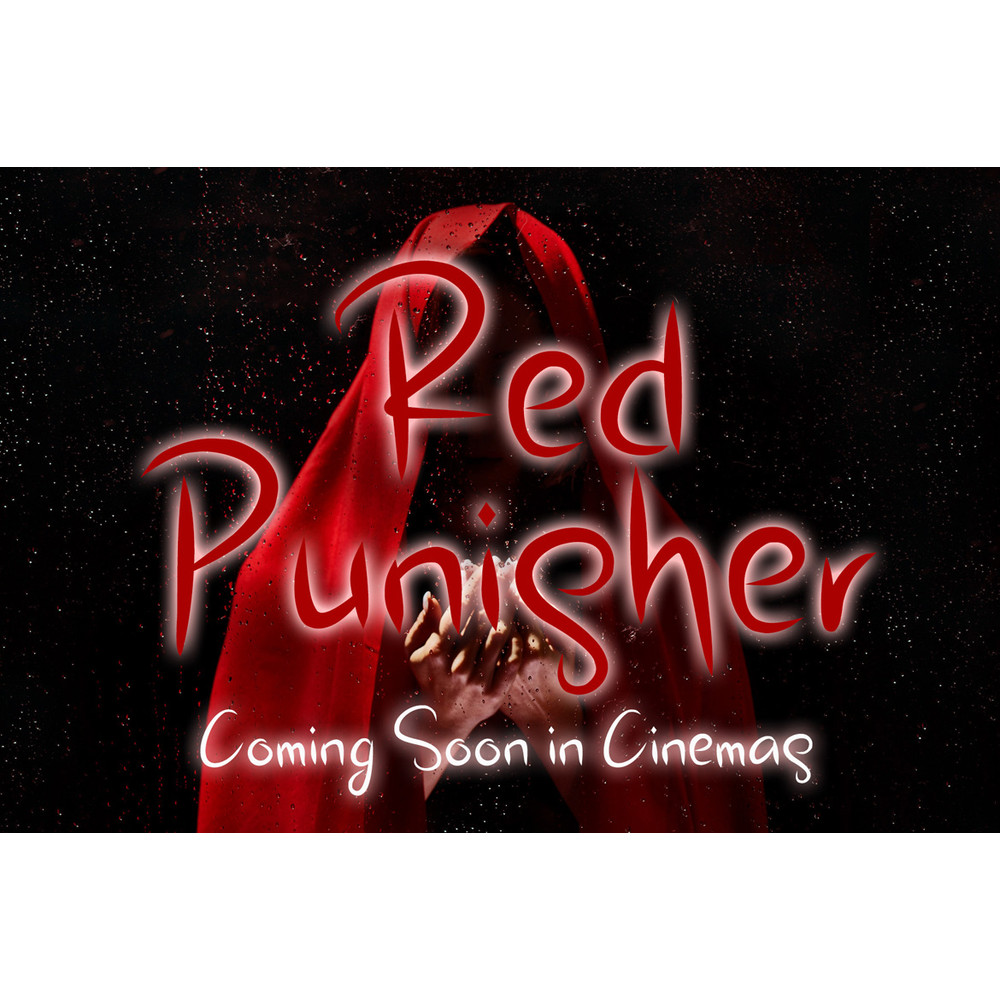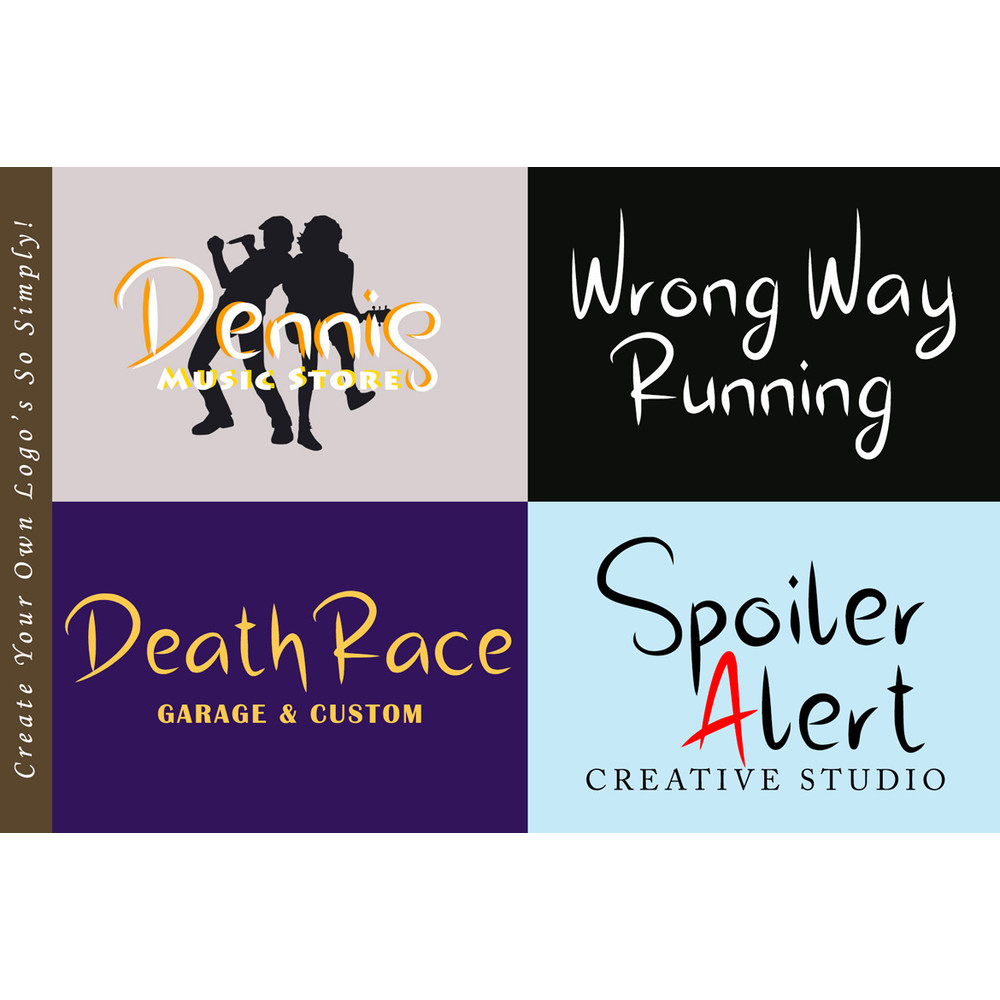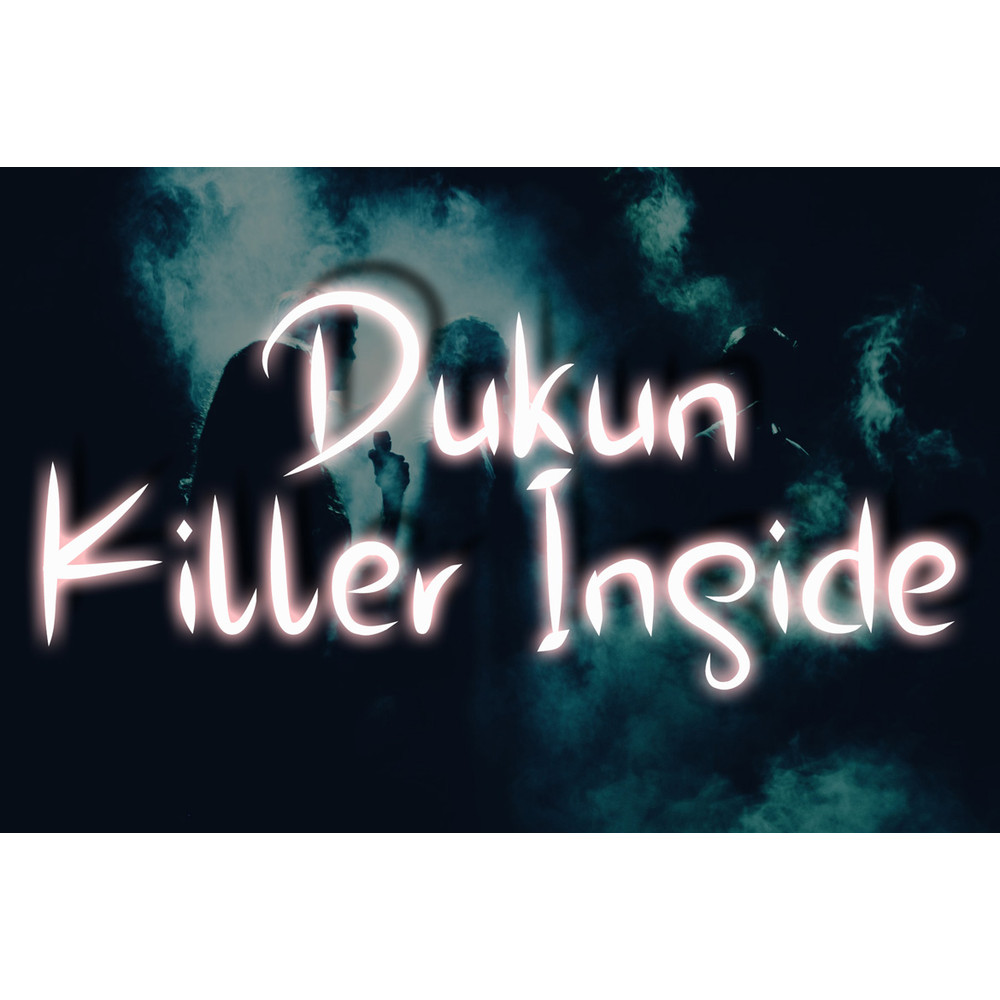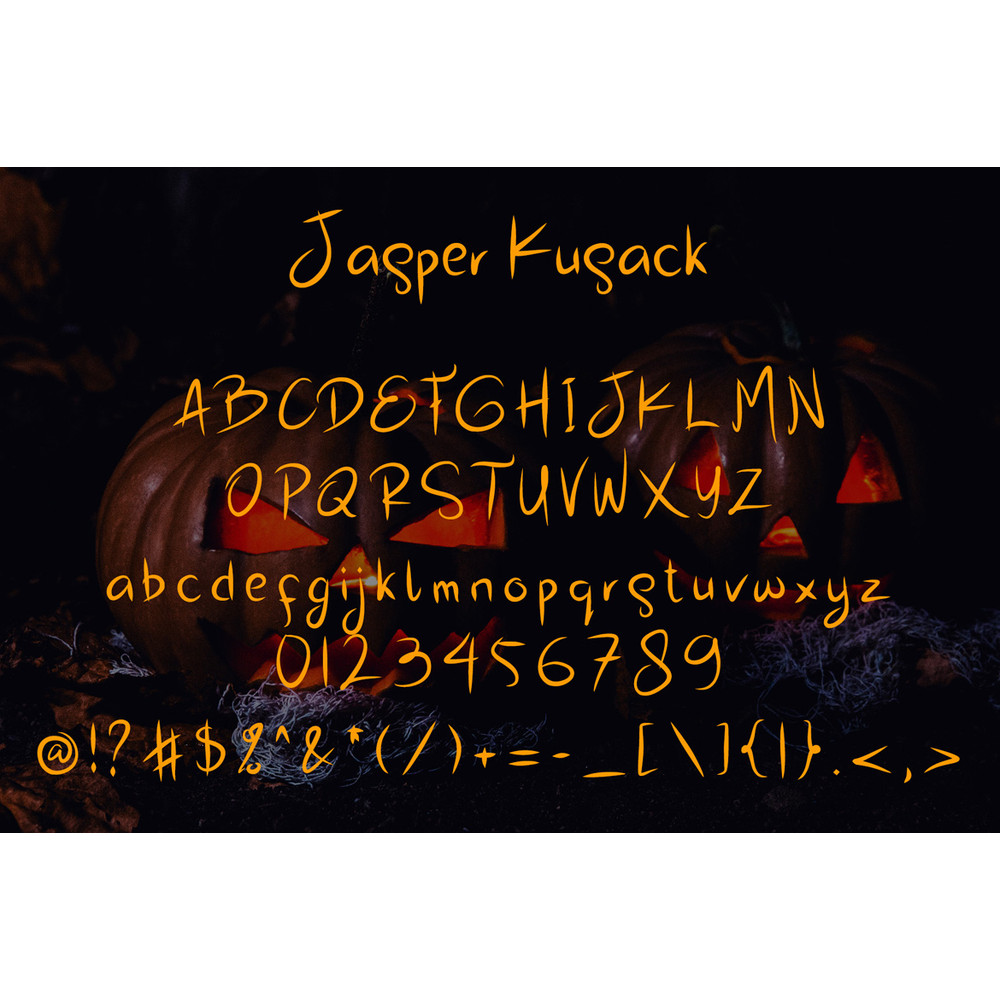
Jasper Kusack is a great font for any project! This font made with the unique taste comes with a natural touch. We keep this font looks readable, elegant, stylish, catchy, and absolutely easy to use.
Jasper Kusack is a great choice for the watermark on branding, design, wedding, photography, signature, logo design, album cover, business card, quotes, and many other design projects.
Jasper Kusack is a great font for any project! This font made with the unique taste comes with a natural touch. We keep this font looks readable, elegant, stylish, catchy, and absolutely easy to use.
Jasper Kusack is a great choice for the watermark on branding, design, wedding, photography, signature, logo design, album cover, business card, quotes, and many other design projects.
Jasper Kusack is a great font for any project! This font made with the unique taste comes with a natural touch. We keep this font looks readable, elegant, stylish, catchy, and absolutely easy to use.
Jasper Kusack is a great choice for the watermark on branding, design, wedding, photography, signature, logo design, album cover, business card, quotes, and many other design projects.
Jasper Kusack is a great font for any project! This font made with the unique taste comes with a natural touch. We keep this font looks readable, elegant, stylish, catchy, and absolutely easy to use.
Jasper Kusack is a great choice for the watermark on branding, design, wedding, photography, signature, logo design, album cover, business card, quotes, and many other design projects.